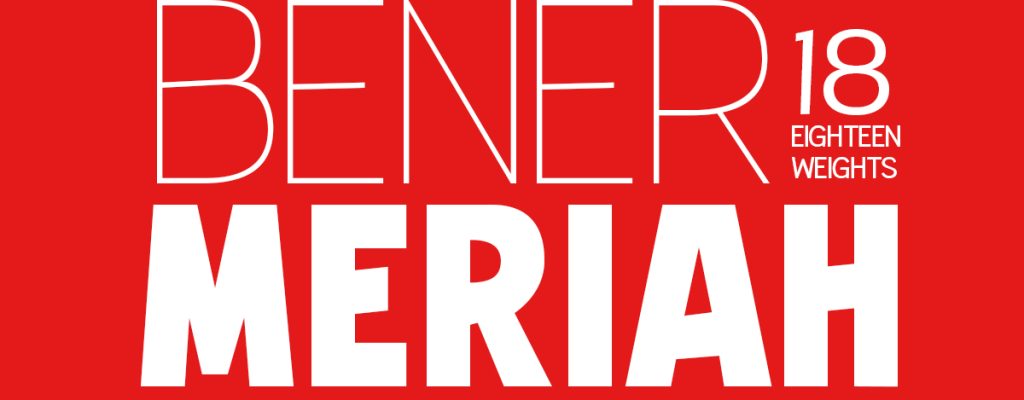
Bener Meriah – Sans Serif Display Family Font
Bener Meriah is a sophisticated and highly versatile sans-serif font family meticulously crafted for designers who demand both elegance and functionality.